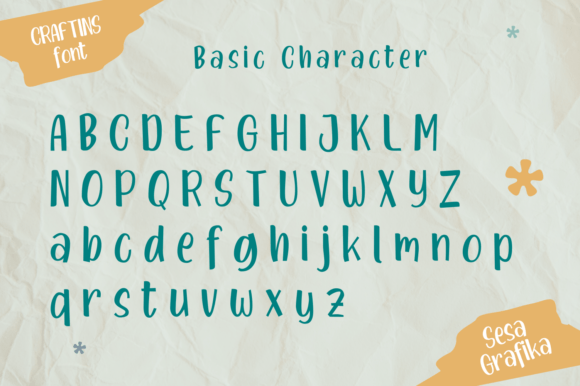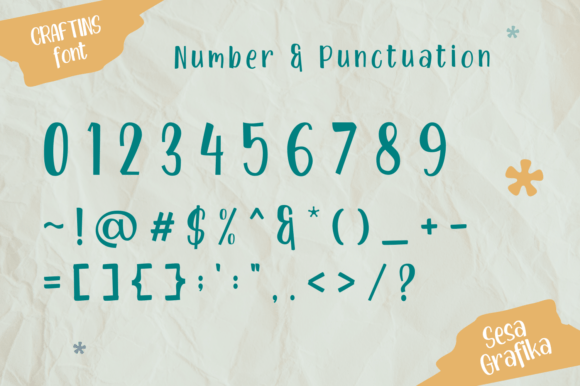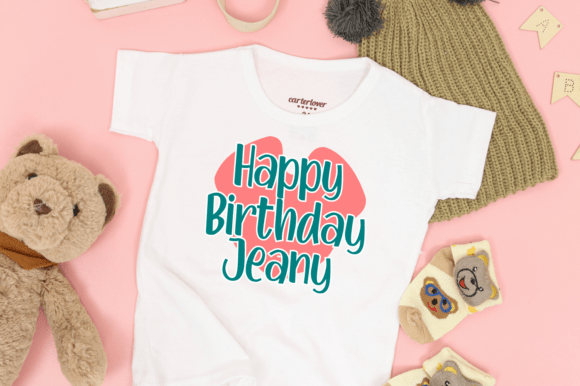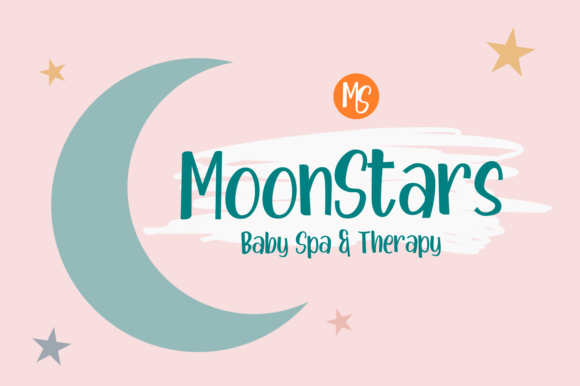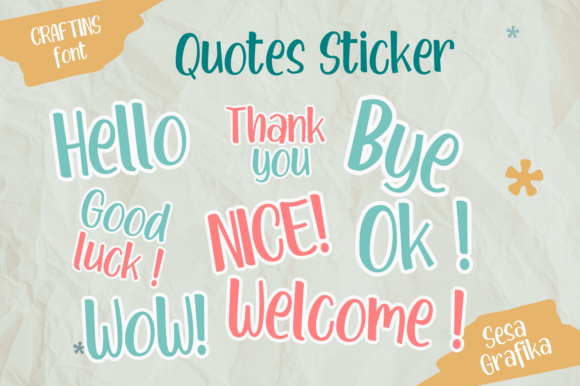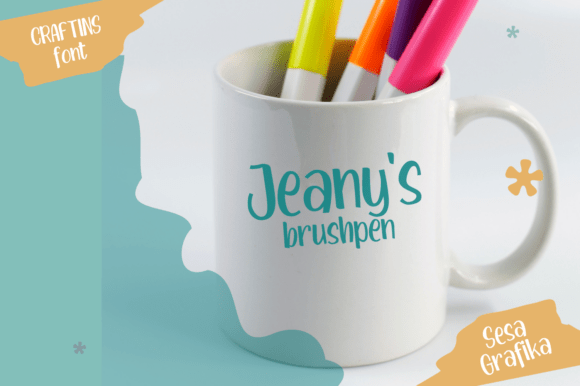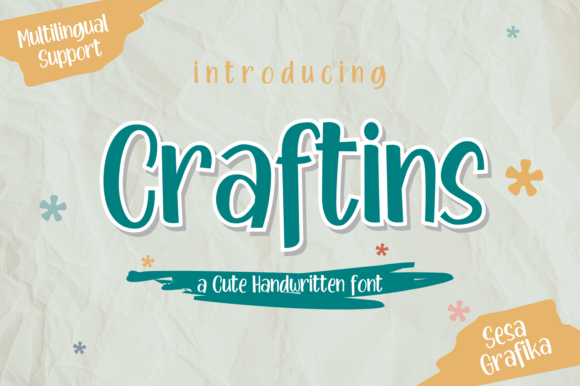
Introducing Craftins Font: Elevate Your Designs with Elegance and Whimsy
In the world of design, fonts play a crucial role in conveying the tone and personality of a project. For crafters, artisans, and designers seeking to add a touch of elegance and class to their creations, Craftins font is an exceptional choice. This trendy handwritten font boasts a contemporary atmosphere and impeccable form, drawing inspiration from timeless classic calligraphy.
The Inspiration Behind Craftins
Craftins font is a beautiful blend of traditional calligraphy and modern design elements. Its creators aimed to craft a font that would not only reflect the beauty of classic calligraphy but also infuse it with a sense of playfulness and whimsy. The result is a font that exudes a captivating allure, effortlessly elevating the appeal of any product or design project.
Key Features of Craftins Font
- Handwritten with Love: Each letter, symbol, and space in Craftins font is filled with endearing whimsy, reflecting the heart-filled dedication applied to its creation.
- Elegance and Class: Craftins adds a touch of sophistication to any design project, making it perfect for crafters and artisans seeking to create high-end products.
- Versatility: This font is tailored for a wide range of mediums, including tote bags, hoodies, mugs, pouches, cellphone cases, and even figurines.
- Universal Sentiments: Craftins font carries universal sentiments, ensuring a successful creative journey in every endeavor.
Why Choose Craftins Font?
Craftins font is an enchanting addition to any design project, infusing every creation with an added touch of magic. Its unique blend of elegance and whimsy makes it an excellent choice for designers and crafters seeking to:
- Create products that stand out in a crowded market
- Add a personal touch to their designs
- Evoke emotions and connections with their customers
Perfect for Artisans and Designers
Craftins font is specifically designed with artisans and designers in mind. Its versatility and elegance make it an ideal choice for a wide range of applications, from handmade products to large-scale commercial projects.
Tips for Using Craftins Font
- Pair with Bold Colors: Combine Craftins font with bold, vibrant colors to create eye-catching designs that pop.
- Experiment with Sizes: Play with different font sizes to add visual interest and hierarchy to your designs.
- Add Texture and Patterns: Mix Craftins font with textures and patterns to add depth and personality to your creations.
Craftins font is a beautiful, trendy handwritten font that brings elegance and whimsy to any design project. Its versatility, universal sentiments, and captivating allure make it an excellent choice for designers, crafters, and artisans seeking to elevate their creations. Whether you’re working on a small-scale handmade project or a large commercial endeavor, Craftins font is sure to infuse your designs with magic and make them all the more enjoyable.